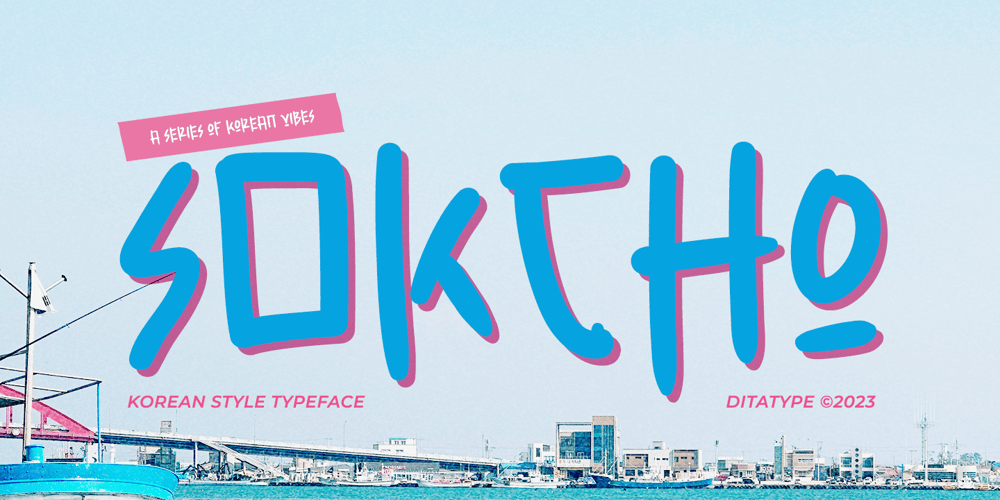
Sokcho
Sokcho Font Family was designed by Donis Miftahudin and published by Ditatype. Sokcho contains 1 styles and family package options. Sokcho is a striking display font that beautifully encapsulates the essence of Korean style. Named after the vibrant coastal city in South Korea, this font mirrors the dynamic and diverse character of its namesake. The design of Sokcho is characterized by its robust and thick weight. The thick weight of the font not only ensures excellent visibility but also adds a modern and assertive quality to the text.What makes Sokcho particularly captivating is the irregularity in the proportions of its letters. The varied letter sizes create a rhythmic flow in written content, reminiscent of the lively streets and diverse landscapes of Sokcho city. This playful inconsistency in the font resonates with the creative spirit of contemporary design trends. Inspired by traditional Korean calligraphy and integrated with a modern design approach, Sokcho transcends cultural boundaries. In addition, enjoy the features here.Features: Alternates Multilingual Supports PUA Encoded Numerals and PunctuationsUppercase Sokcho fits in headlines, logos, posters, flyers, branding materials, greeting cards, print media, editorial layouts, and many more designs. Find out more ways to use this font by taking a look at the font preview.Thanks for purchasing our fonts. Hopefully, you have a great time using our font. Feel free to contact us anytime for further information or when you have trouble with the font. Thanks a lot and happy designing.